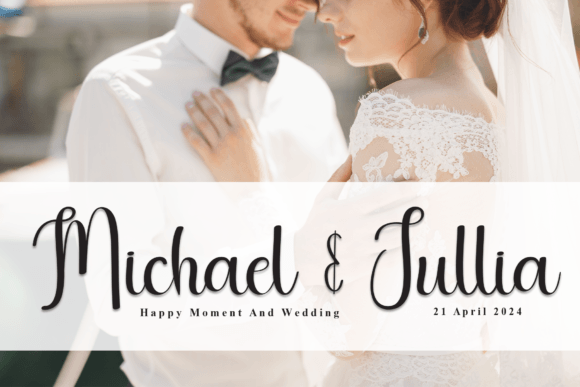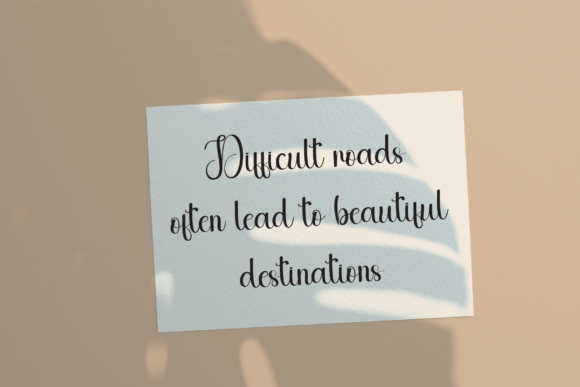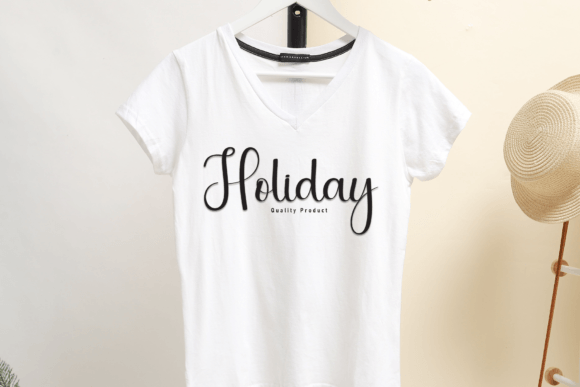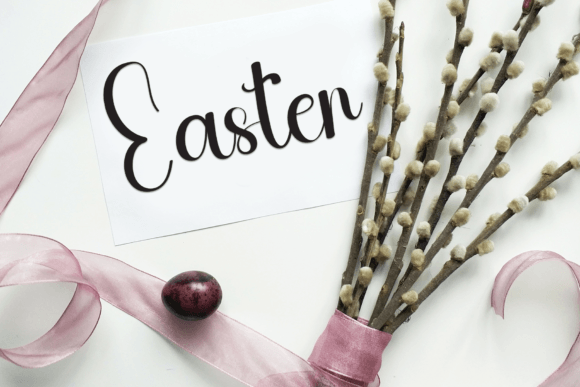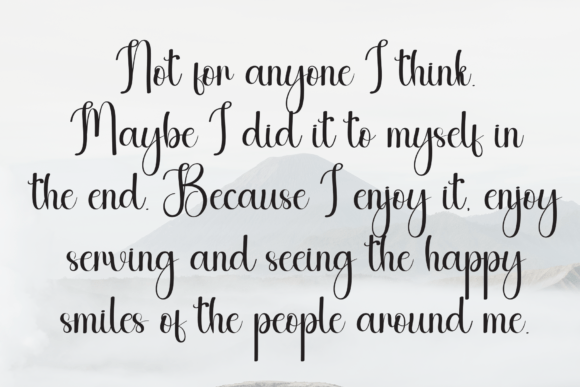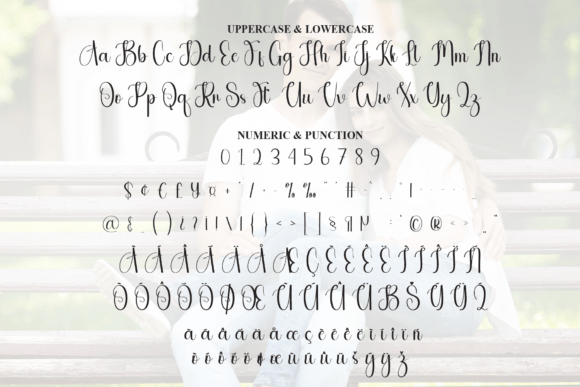
The Darling Font: A Sweet Addition to Your Design Toolbox
I’ll never forget the time I was working on a wedding invitation project, and my client asked for a font that was “warm,” “inviting,” and “totally unique.” I scoured the internet, tried out a gazillion fonts, but nothing seemed quite right. That was until I stumbled upon the Darling font. With its smooth, flowing strokes and friendly character, it was love at first sight! In this article, I’ll share with you why I’m obsessed with Darling and how you can make the most of this charming handwritten font.
An Honest Review of Darling Font
What I Love About Darling Font ✨
- ✅ The personal touch: Darling adds a sweet, human feel to any design project.
- ✅ Versatility: It works beautifully for invitations, greeting cards, and cozy branding.
- ✅ Easy on the eyes: The font is smooth and clear, even at smaller sizes.
- ✅ Highly legible: Perfect for longer texts, like welcome messages or stories.
- ⚠️ Limited use in very formal contexts: Darling is best suited for friendly, approachable designs.
- ⚠️ May not work well in very large headings: The font’s charm can get lost at super large sizes.
- Experiment with OpenType features like ligatures and stylistic alternates to add character.
The Backstory of Darling Font
Darling was created by a talented type designer who wanted to craft a font that felt like a warm hug. Inspired by classic handwritten scripts and a dash of modern playfulness, Darling was born. The designer’s goal was to create a font that would make anyone feel welcome and included.
Q: What makes Darling font unique?
A: Darling’s smooth strokes and friendly character make it perfect for adding a personal touch to designs.
Q: Does Darling support OpenType features?
A: Yes, Darling includes OpenType features like ligatures and stylistic alternates to enhance your designs.